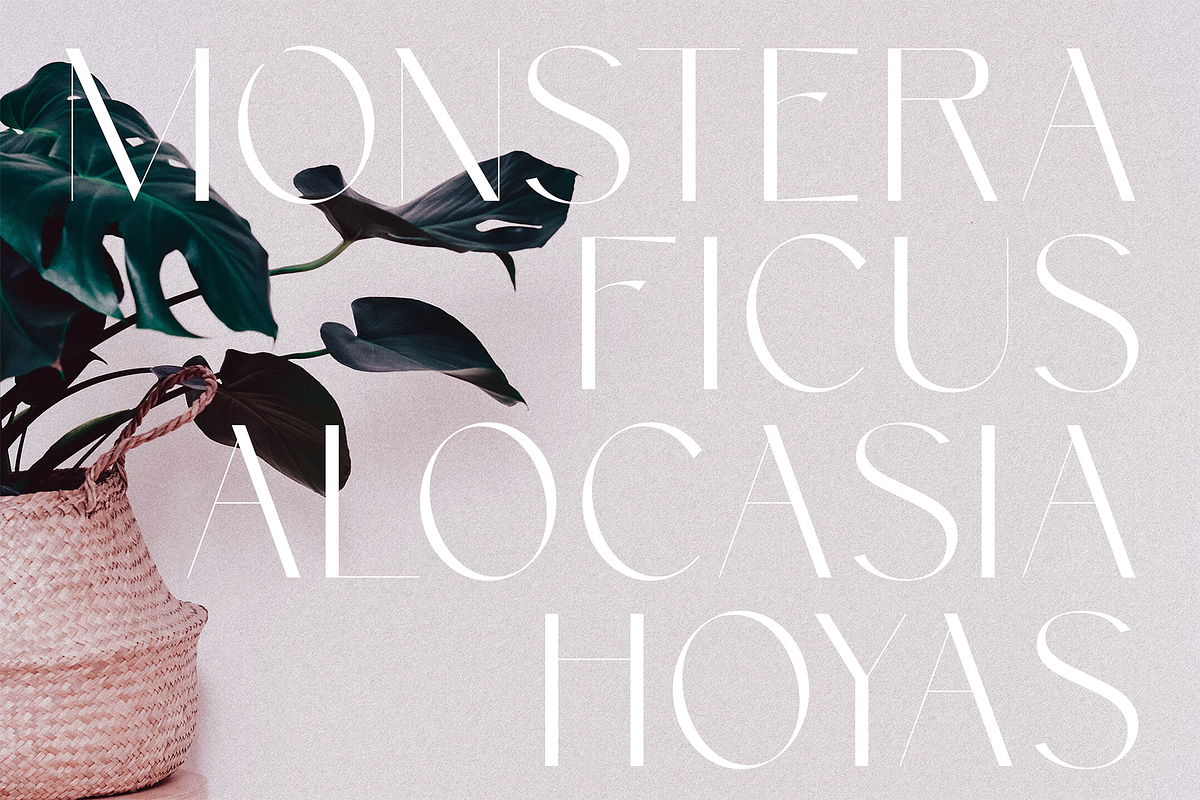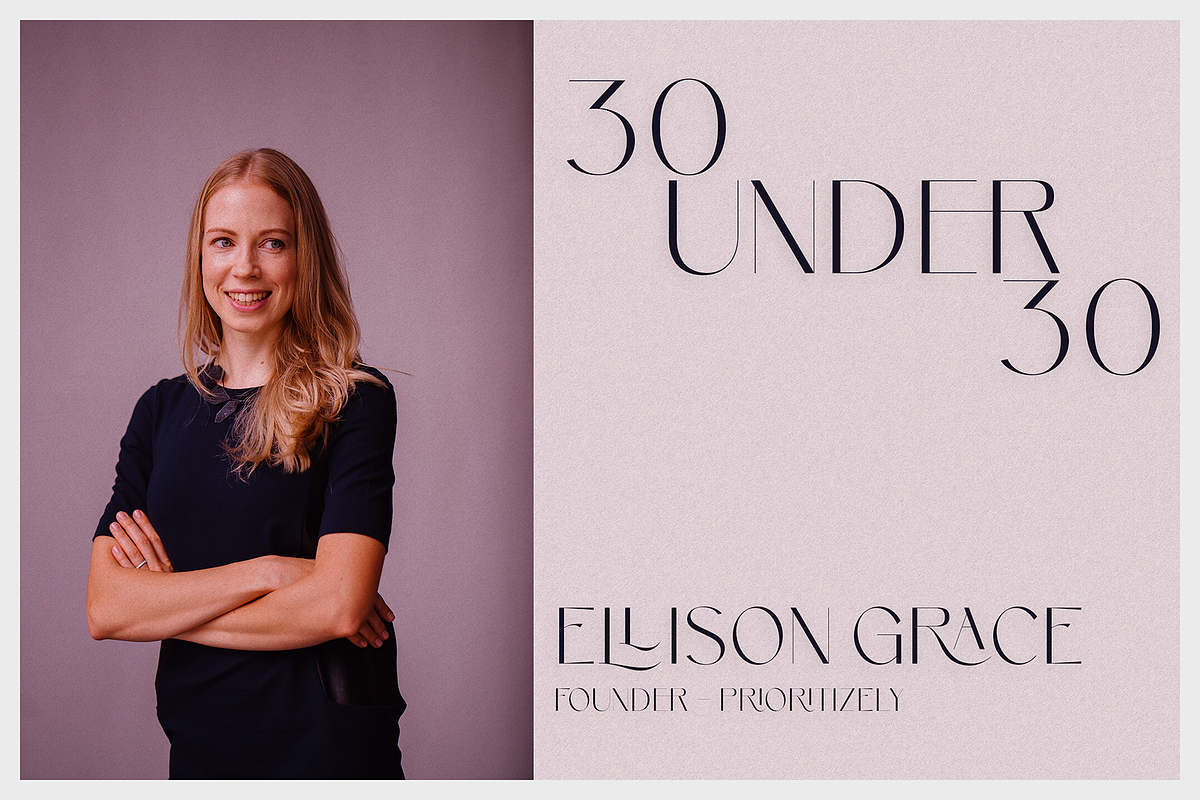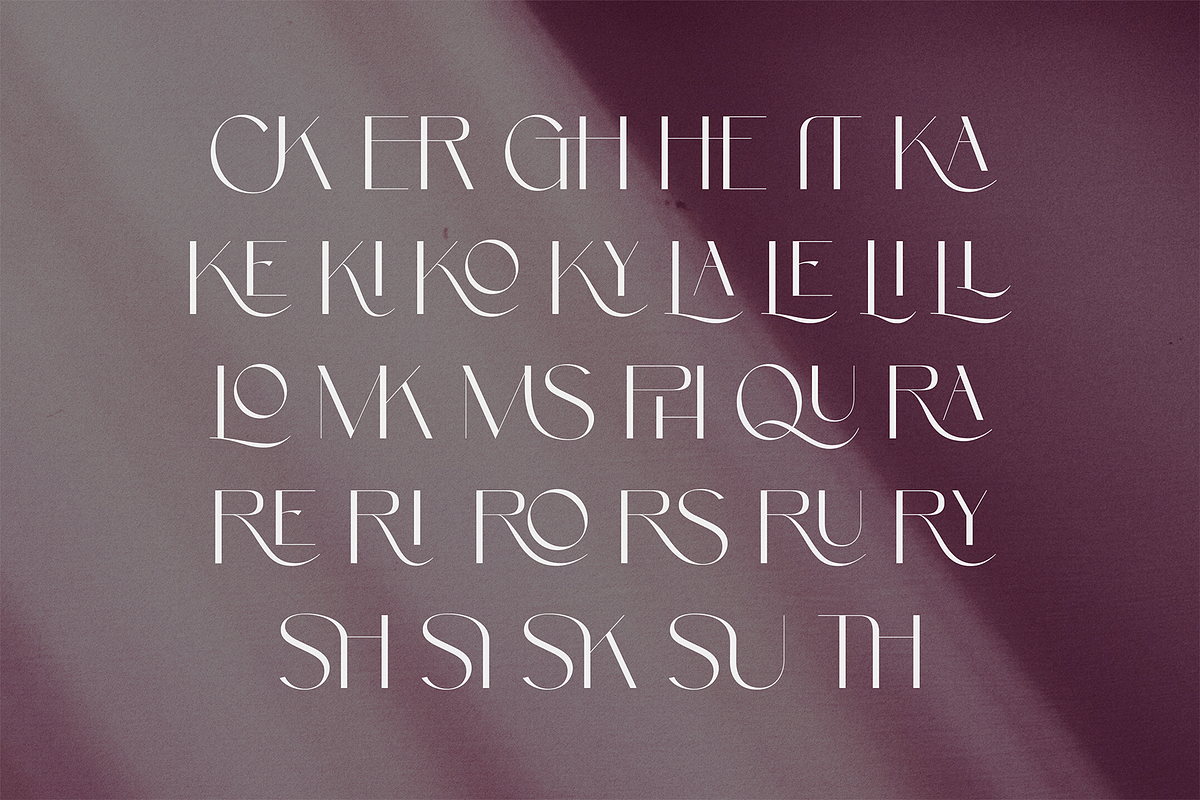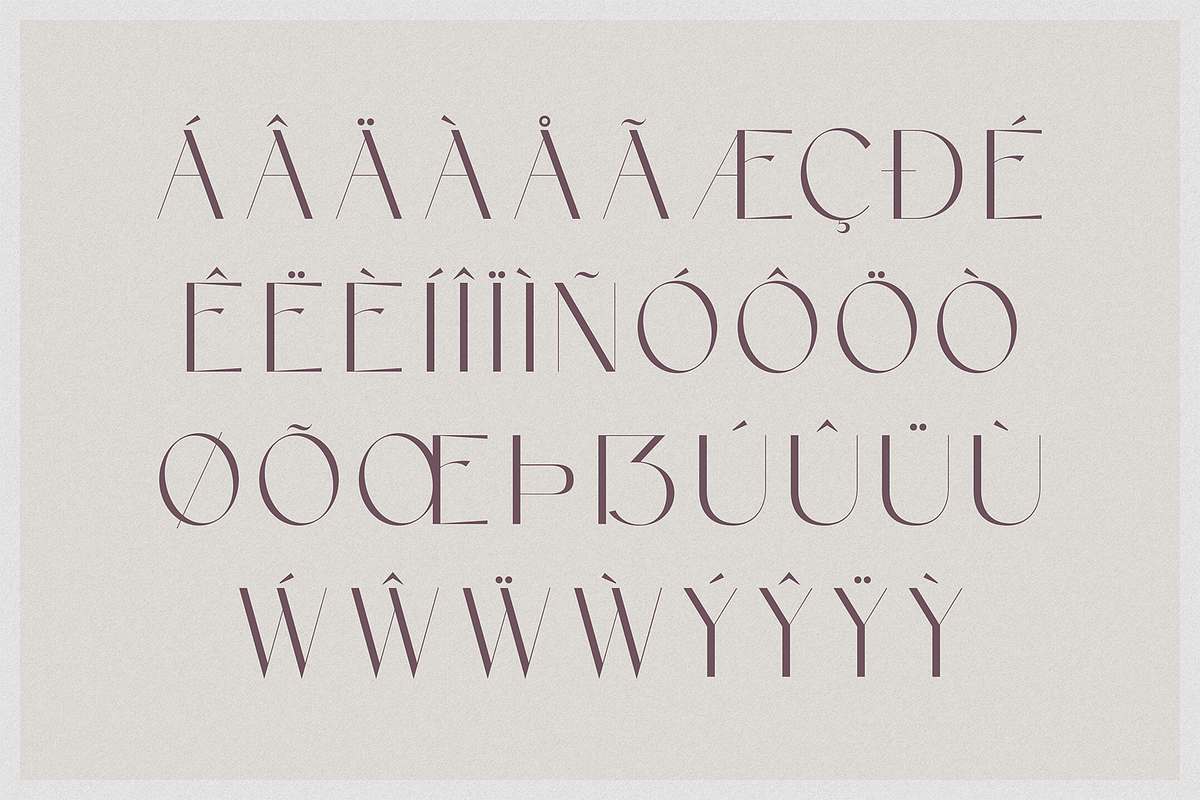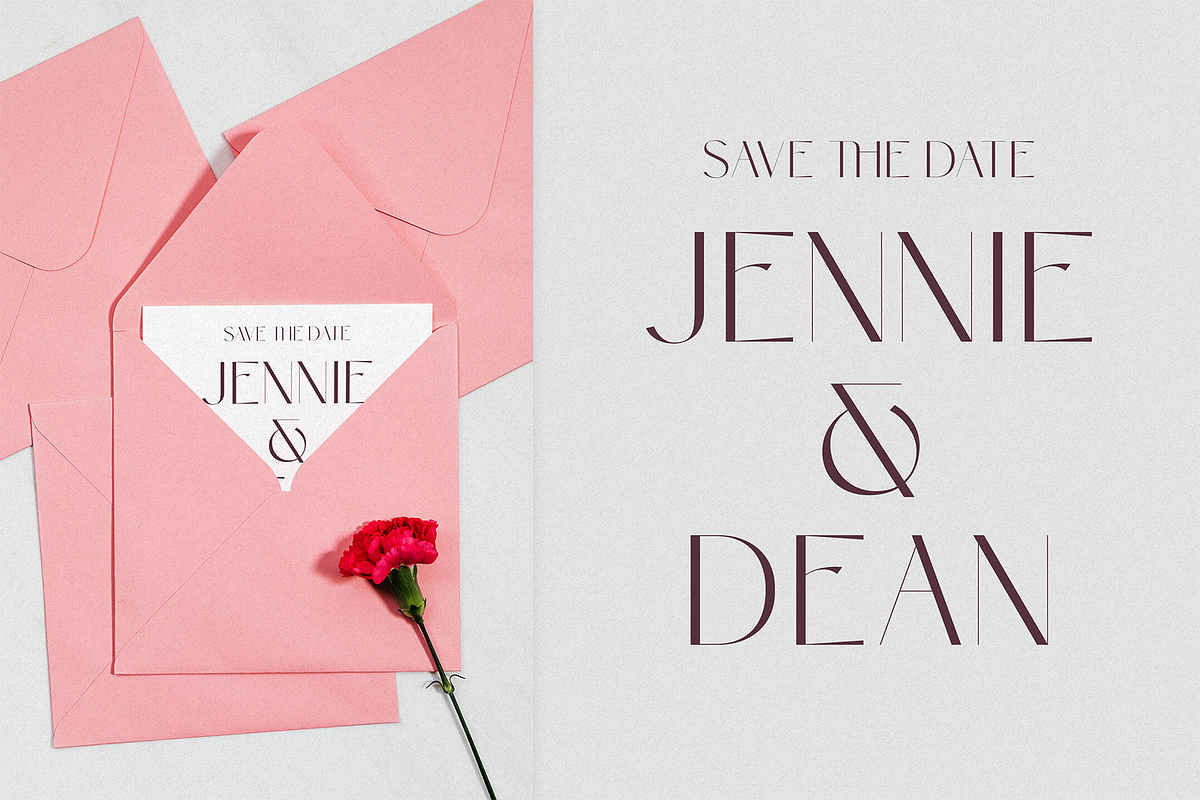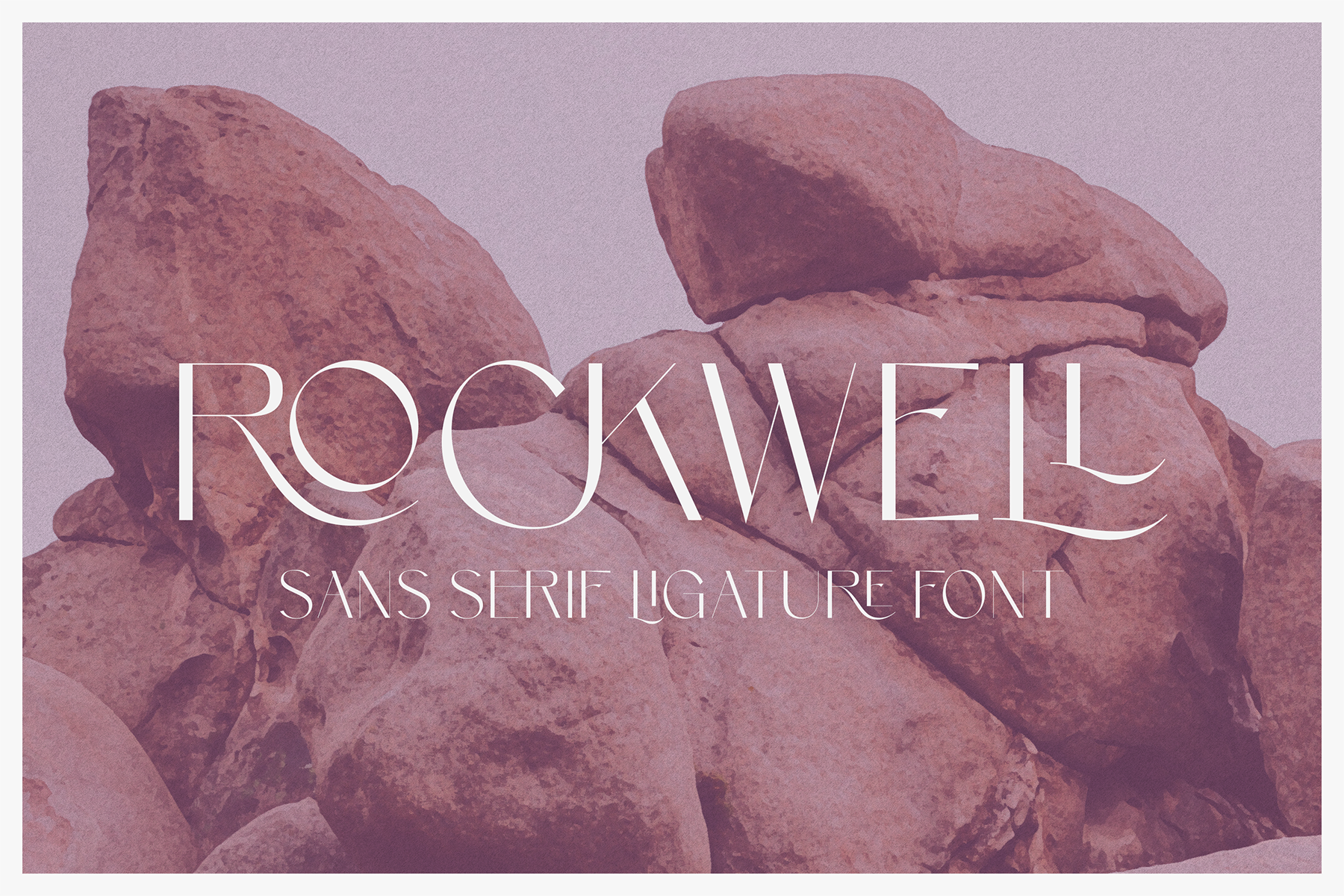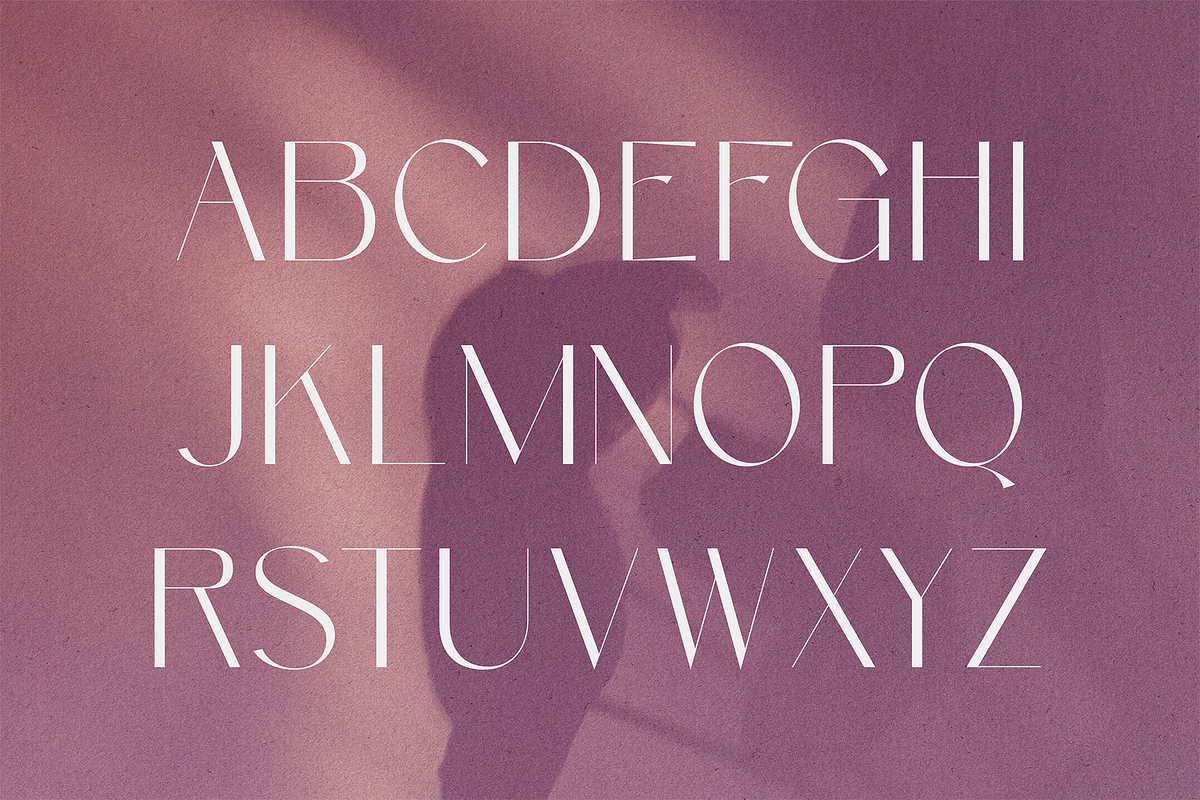
Rockwell - Sans Serif Ligature Font
Rockwell is a ligature filled sans serif font that's perfect for any luxury design. It features varied line weights and a high crossbar, taking inspiration from classy & elegant art deco designs.
This font includes a useful set of expertly crafted ligatures, as well as multilingual support.
Ligatures included: CK ER GH HE IT KA KE KI KO KY LA LE LI LO MK MS PH QU RA RI RE RO RS RU RY SH SI SK SU TH